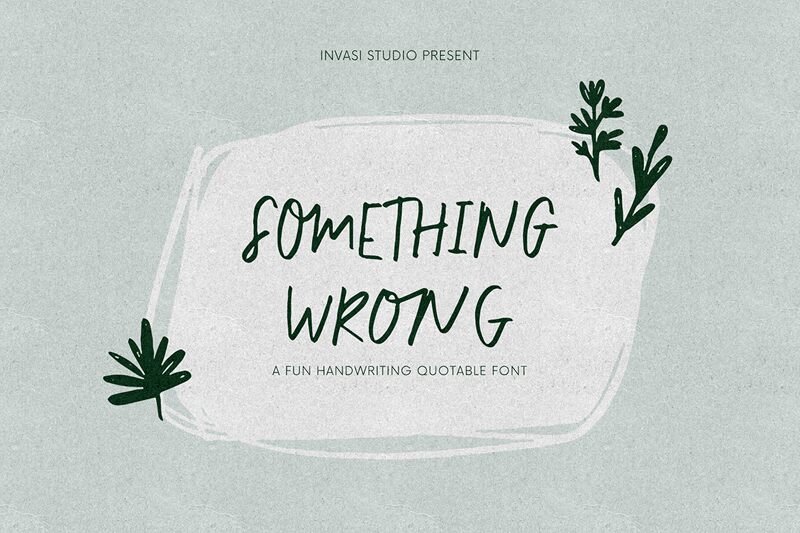
Introducing Something Wrong, the perfect font for adding a touch of personality to your creative projects. Designed by Gha Arizal, this casual handwritten font is ideal for anything from greeting cards to social media graphics. With its light weight and playful style, Something Wrong is versatile enough to suit a variety of projects, whether you're creating a whimsical logo or designing your own unique invitations. Whatever your needs may be, Something Wrong is sure to bring your ideas to life with its quirky charm and eye-catching appeal. Try it today and see what kind of magic you can create!
Something Wrong
Gha Arizal